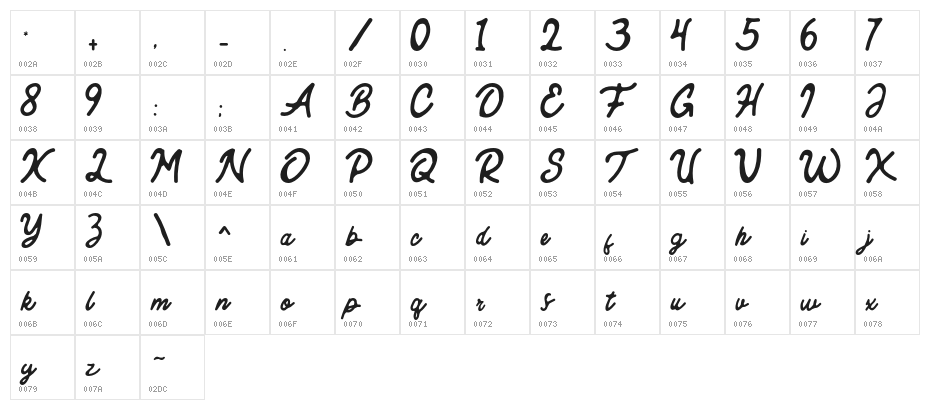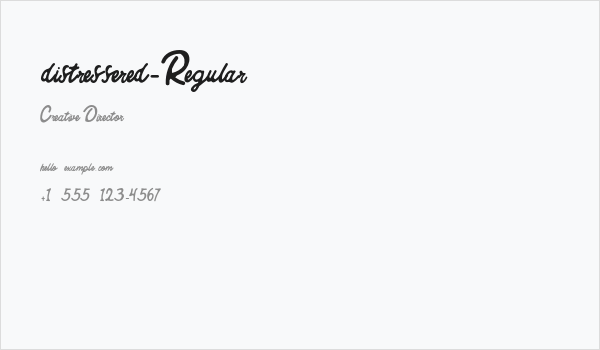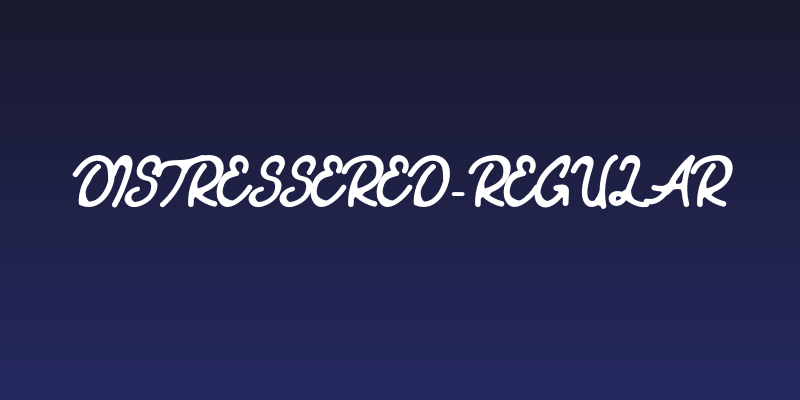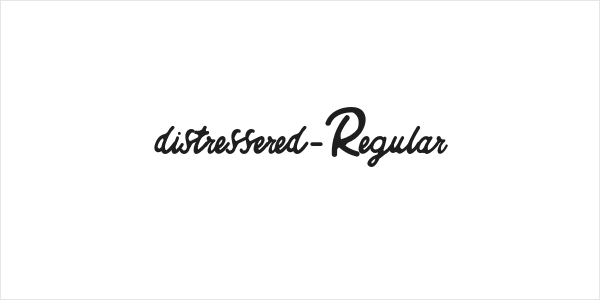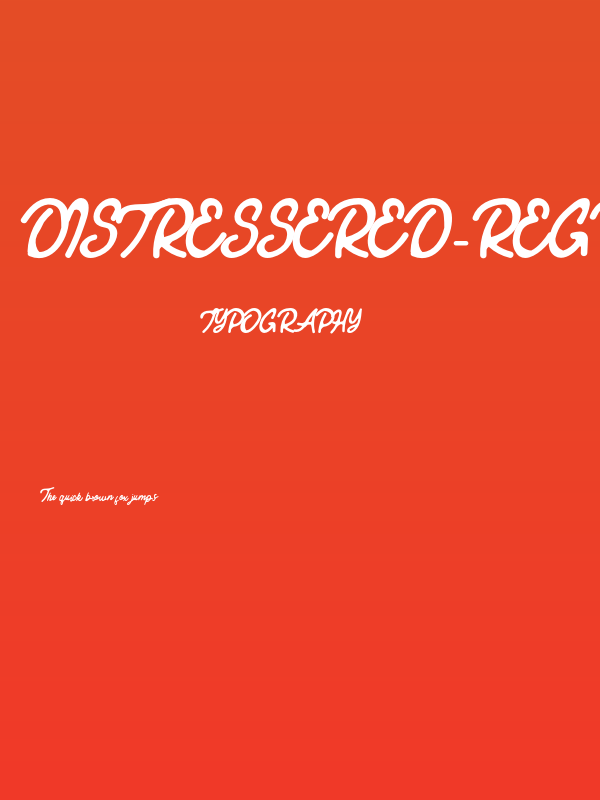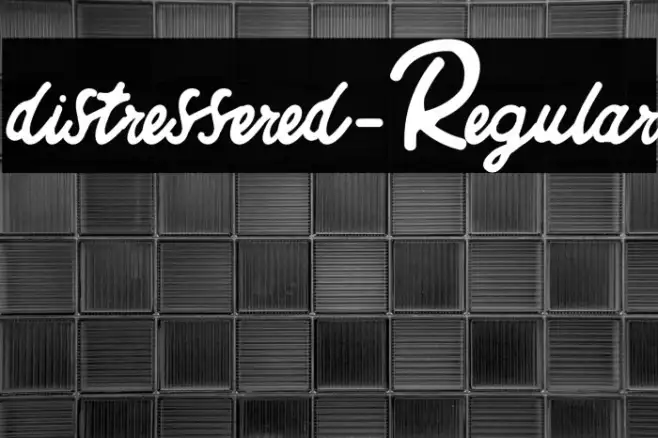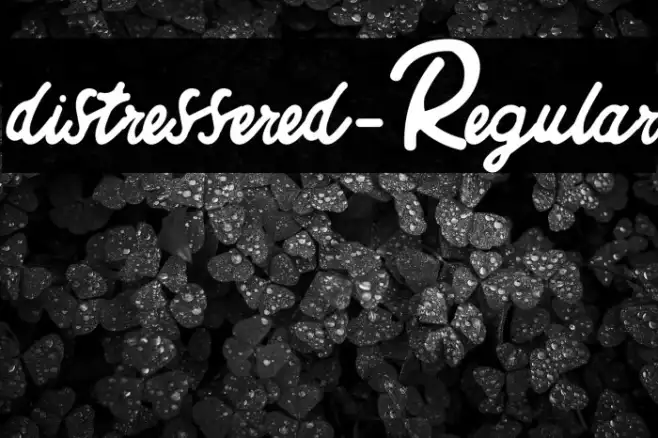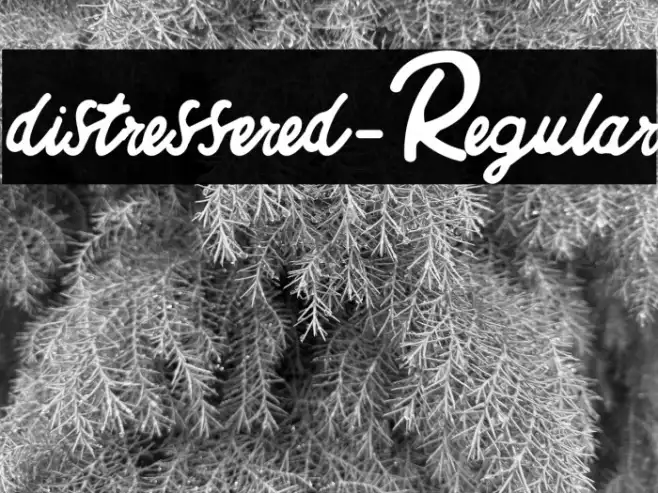
distressered-Regular Font
distressered-Regular Description
This font features a bold, cursive style with a distressed appearance, giving it a hand-drawn, vintage feel. The uppercase letters are fluid and connected, while the lowercase letters maintain a consistent flow, enhancing readability. The numerals are bold and slightly rounded, complementing the overall style. The special characters are uniquely styled, adding to the font's decorative appeal. This font's design is ideal for projects that require a touch of nostalgia or a handcrafted look.
| Proposed Projects | Ideal for vintage-themed posters, logos, and branding materials that require a handcrafted, nostalgic feel. |